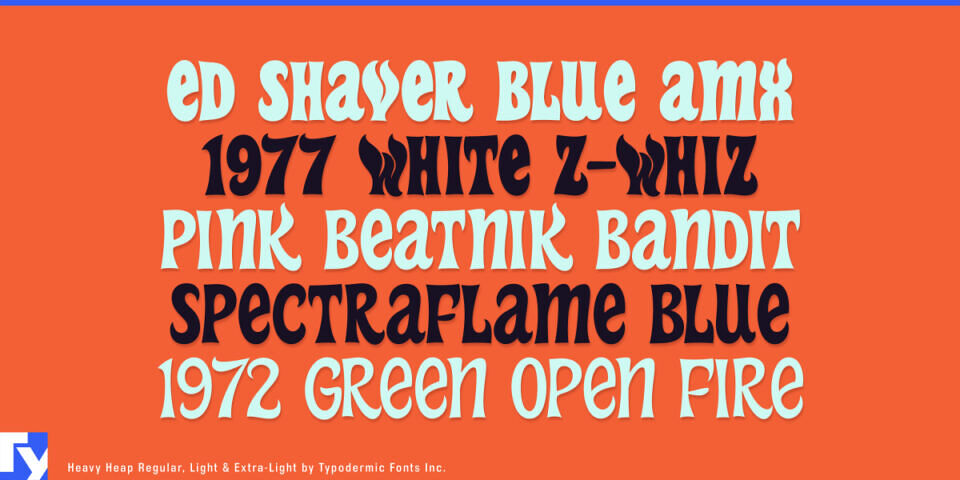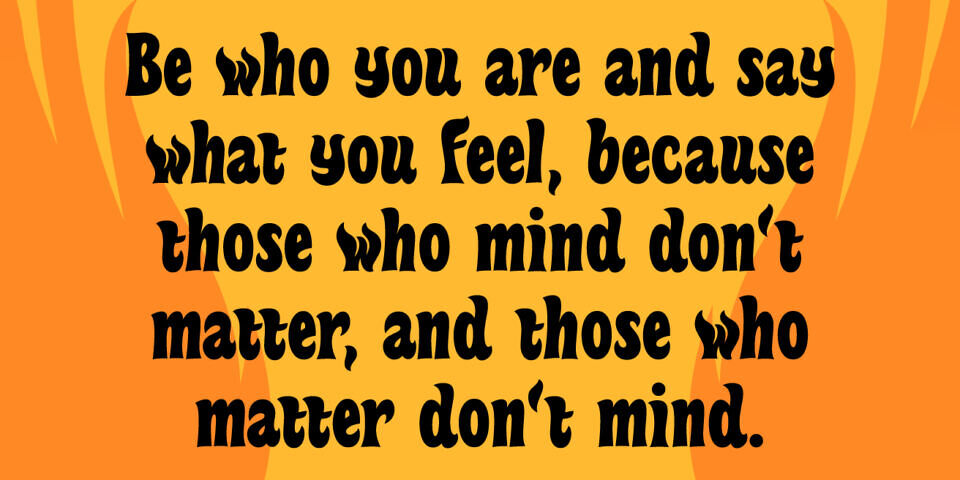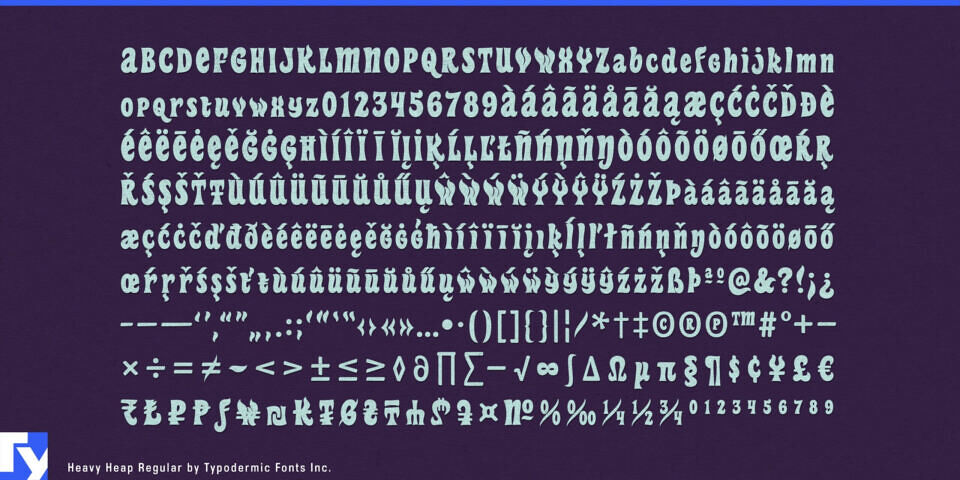
Heavy Heap Font
Heavy Heap revs up the curvy lettering of the late 1960s with modern precision and a dose of Hot Wheels attitude. Its flickering serifs and flame-like contours create motion and warmth, making headlines feel alive.
Spanning weights from Extra-Light to Heavy (full paid version), the family moves easily from playful groove to full-bore power, suiting everything from toy packaging and concert posters to sports and event branding. Compact proportions and balanced curves keep it bold but readable. Energetic, flexible, and unmistakably retro, Heavy Heap brings classic car culture into the modern design lane.
Designed by: Typodermic Fonts